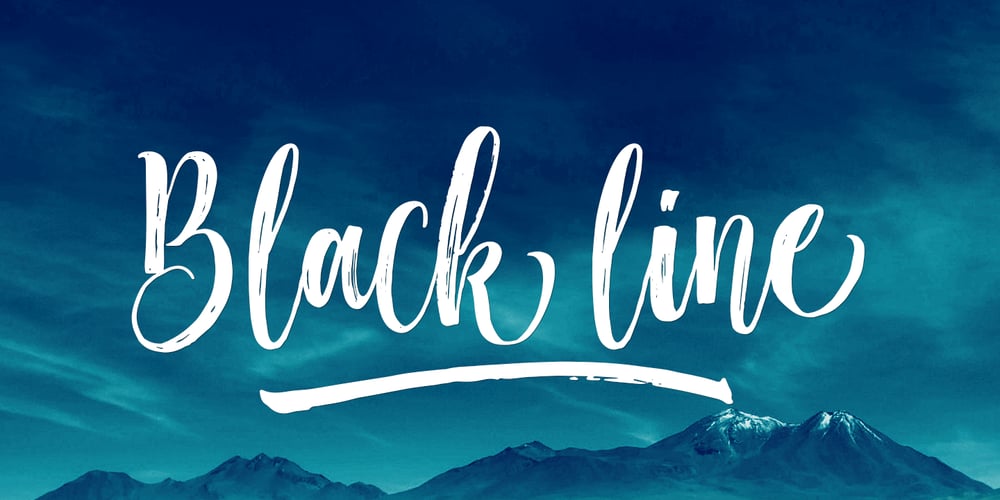
Black Line Font Family was designed by Ambia and published by Areatype. Black Line contains 2 styles and family package options. Black Line is a new, very interesting brushed font. Black Line Display can be combined in harmony with Black Line Regular. This font family is perfect for branding projects, logos, product packaging, posters, invitations, greeting cards, news, blogs, everything including personal charm and more.Black Line offers OpenType features, some ligatures and swashes, initial and terminal letters, and International support for most Western Languages.To enable the OpenType Stylistic alternates, you need a program that supports OpenType features such as Adobe Illustrator CS, Adobe Indesign & CorelDraw X6-X7, Microsoft Word 2010 or later versions.How to access all alternative characters, using Windows Character Map with Photoshop: https://www.youtube.com/watch?v=Go9vacoYmBwHow to access all alternative characters using Adobe Illustrator: http://youtu.be/iptSFA7feQ0nnBlack Line is coded with PUA Unicode, which allows full access to all the extra characters without having special designing software. Mac users can use Font Book , and Windows users can use Character Map to view and copy any of the extra characters to paste into your favorite text editor/app.Thanks so much for looking and please let me know if you have any questions.